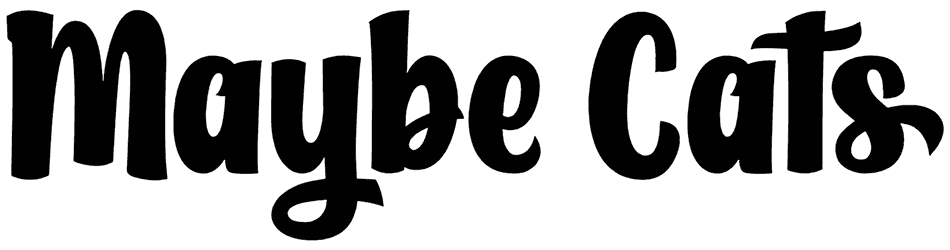
Maybe Cats Font
Maybe Cats is a script cat font that comes with full details and suits any professional purposes such as posters, flyers, menus, branding, and stickers. Its characters are crocked and rounded, thus it helps graphic designers to evoke the feeling of happiness, love, and innovation in the audience’s minds, which would be practical for boosting the content efficiency.